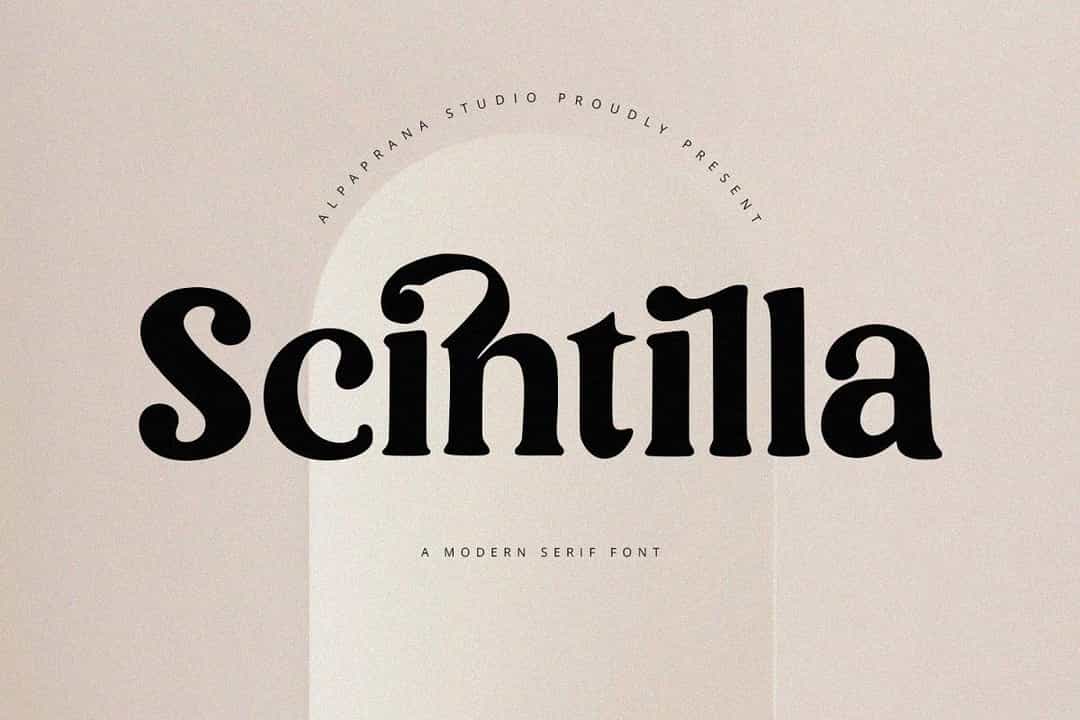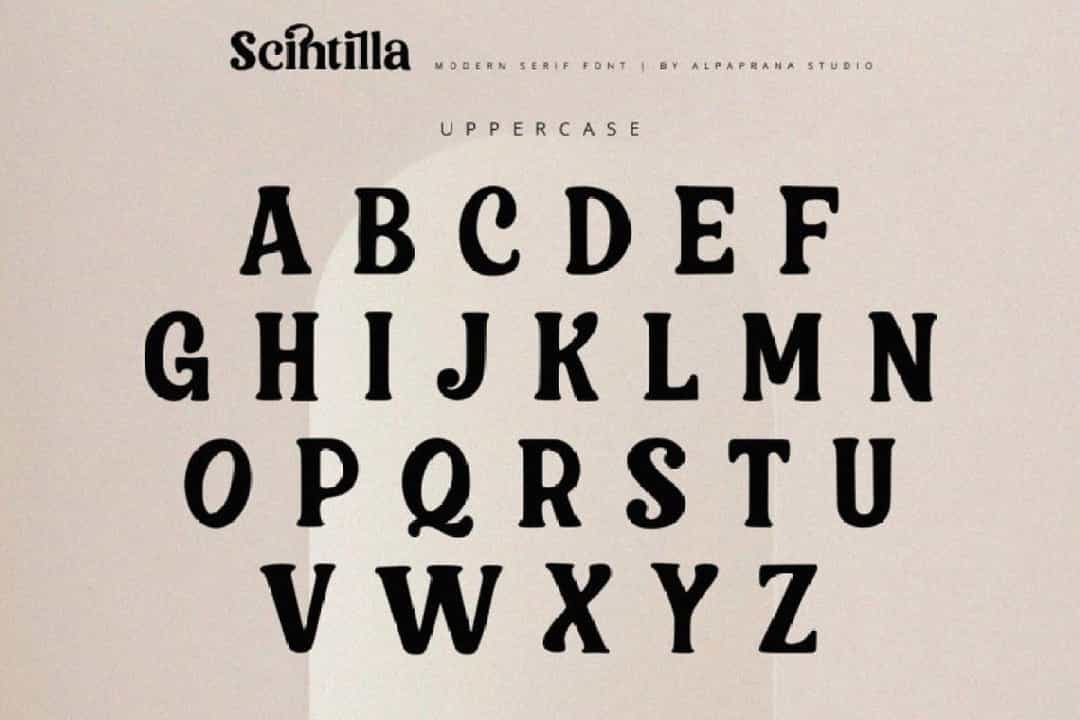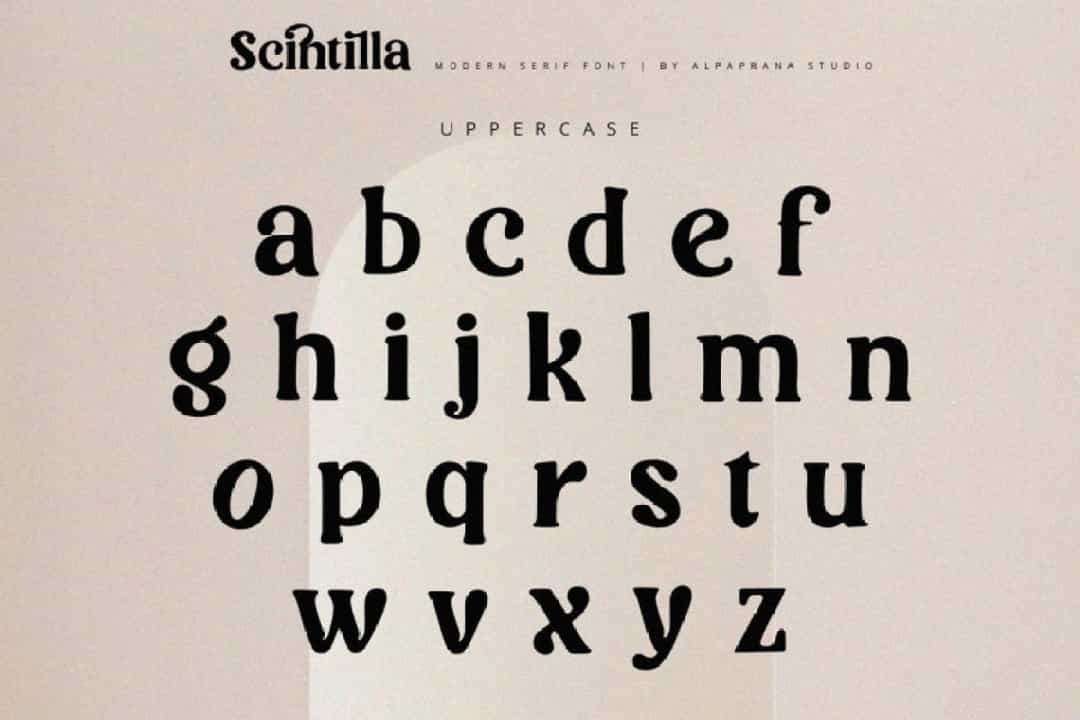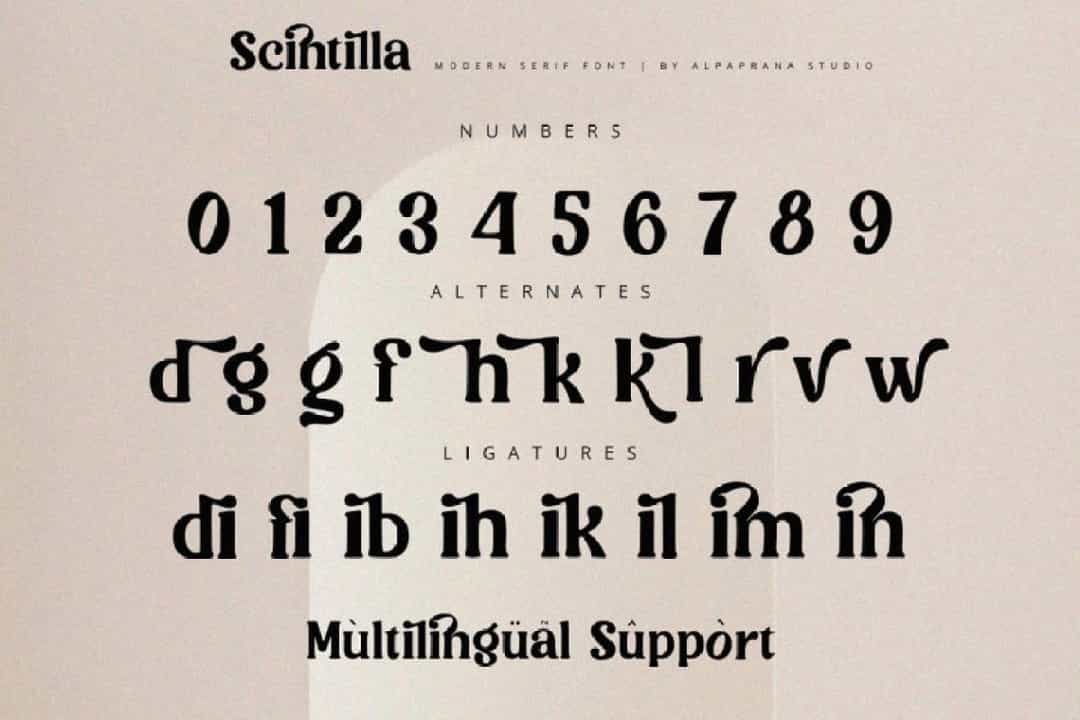
Scintilla can be described as an elegant serif typeface with a casual and natural aesthetic, ideal for branding, logo Design and lettering projects such as clothing Magazine covers, posters packaging bags shopping bags t-shirts book covers photography events or any other creative projects requiring design elements.